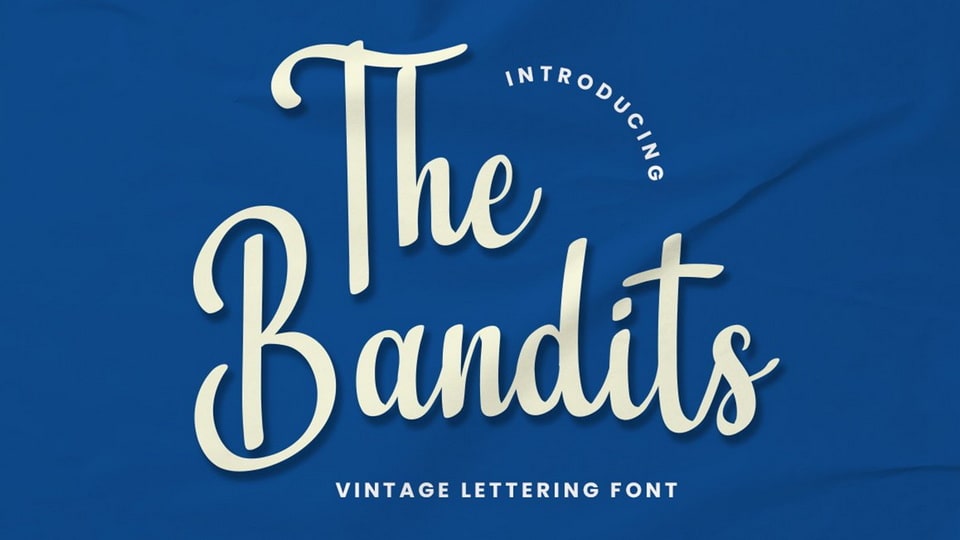
Jan 31, 2025Script & HandwrittenThe Bandits Font The Bandits is a vintage and hand lettering script font. It maintains its classy calligraphic influences while feeling contemporary and fresh. Fall in love with it and bring your projects to the highest levels! Font DetailsDesigned by: Bluestype StudioWebsiteLicense: Free for personal use Download The Bandits FontFile size: 70.69 KBCreated: February 16, 2025Updated: February 16, 2025 Download Explore similar fonts Aaksaraan Rania Font Arthur Meridian Font Rhetorical Flourish Font Gelato Vanilla Font Renitta Font Bellina Font # Calligraphy# Hand-drawn# Handwriting# Pretty More fonts by Bluestype StudioNorthampton FontSatisfaction FontBeverly Sage FontThink Memories FontJust Because FontThe Moment Counts FontTechnobot FontGrateful Signature Font